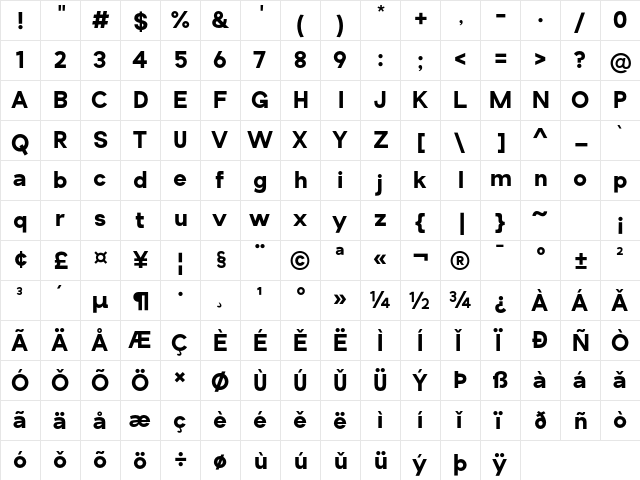
Antapani ExtBd Regular
| Foundry | Monoco Type |
| Designer | Abdurrahman Hanif |
Design Context for Antapani ExtBd Typeface
Antapani ExtBd takes a measured approach to typography — its balanced proportions and neutral character make it a reliable workhorse for both digital and print work.